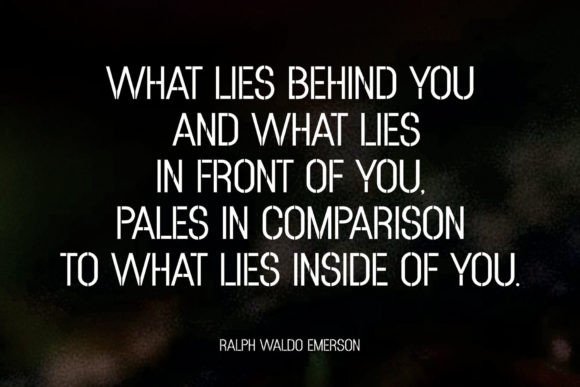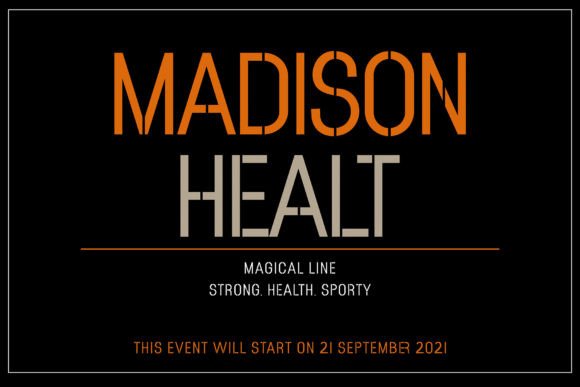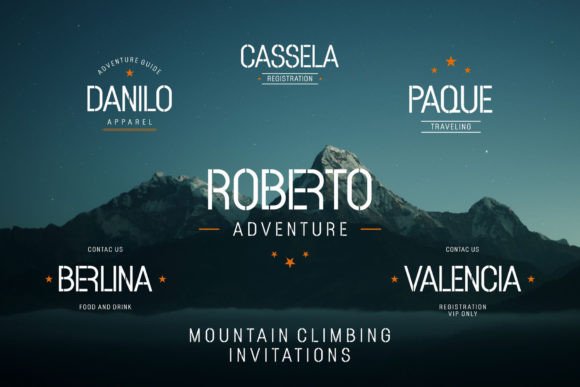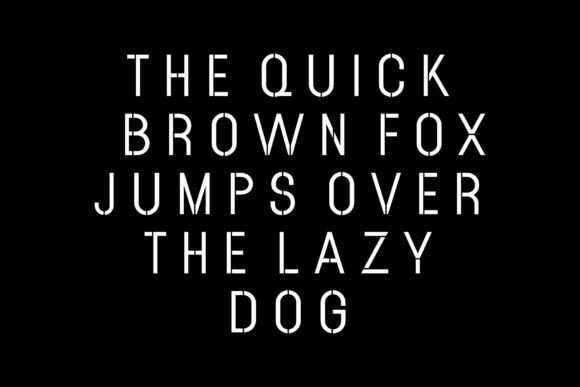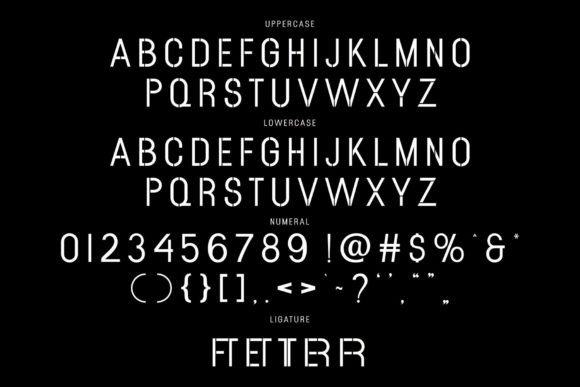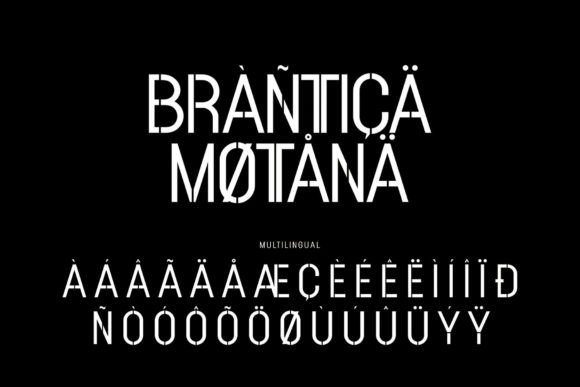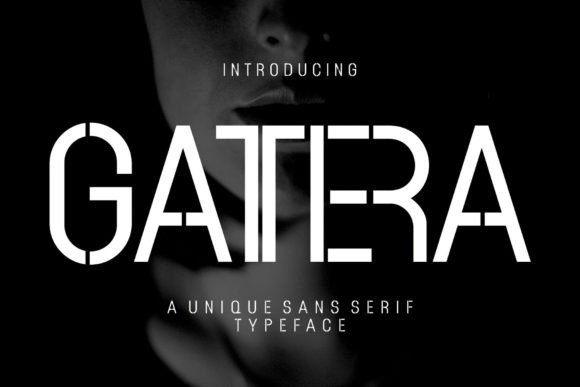
Gattera Font: A Bold and Assertive Sans Serif for Your Creative Projects
In the world of typography, a font can make or break a design. It’s the foundation upon which the entire visual identity of a project is built. For designers and crafters, finding the right font can be a daunting task, but today, we’re excited to introduce you to Gattera Font, a bold and assertive sans serif font that’s sure to elevate your creations.
The Power of Gattera Font
Gattera is a bold and assertive sans serif font designed to make a statement. Its clean lines, precise curves, and confident stance make it the perfect choice for a wide range of projects, from branding and advertising to packaging and digital media. No matter the topic or industry, Gattera Font has the potential to add a touch of sophistication and elegance to your designs.
Key Features of Gattera Font
- Bold and Assertive: Gattera Font is designed to grab attention. Its bold strokes and assertive stance make it perfect for headlines, titles, and any other text that needs to stand out.
- Sans Serif: The clean and minimalist design of Gattera Font makes it easy to read and versatile enough to use in a variety of contexts.
- Highly Legible: The font’s precise curves and carefully crafted letterforms ensure that it’s highly legible, even at small sizes.
- Wide Range of Applications: From digital media to print materials, Gattera Font can be used in a wide range of applications, making it a valuable addition to any designer’s font library.
Why Choose Gattera Font?
With so many fonts available, why choose Gattera? The answer lies in its unique combination of style, versatility, and functionality. Here are just a few reasons why Gattera Font should be your go-to choice for your next project:
- Elevate Your Designs: Gattera Font has the power to elevate any design, adding a touch of sophistication and elegance that’s sure to impress.
- Stand Out from the Crowd: With its bold and assertive design, Gattera Font is sure to make your designs stand out from the crowd.
- Save Time: With Gattera Font, you can create stunning designs in no time. Its highly legible and versatile design makes it easy to use and customize.
How to Use Gattera Font
Using Gattera Font is easy. Here are a few tips to get you started:
- Pair with Other Fonts: Gattera Font pairs well with other sans serif fonts, but feel free to experiment with different combinations to find the perfect look for your project.
- Experiment with Sizes: Gattera Font is highly legible at a wide range of sizes, so don’t be afraid to experiment with different sizes to find the perfect fit for your design.
- Customize to Your Liking: With its clean and minimalist design, Gattera Font is easy to customize. Feel free to add your own twist to make it your own.
In conclusion, Gattera Font is a bold and assertive sans serif font that’s sure to elevate your designs. With its clean lines, precise curves, and confident stance, it’s the perfect choice for a wide range of projects. Whether you’re a designer, crafter, or simply someone who appreciates great typography, Gattera Font is an incredible asset to your font library. So why wait? Download Gattera Font today and start creating stunning designs that are sure to impress.